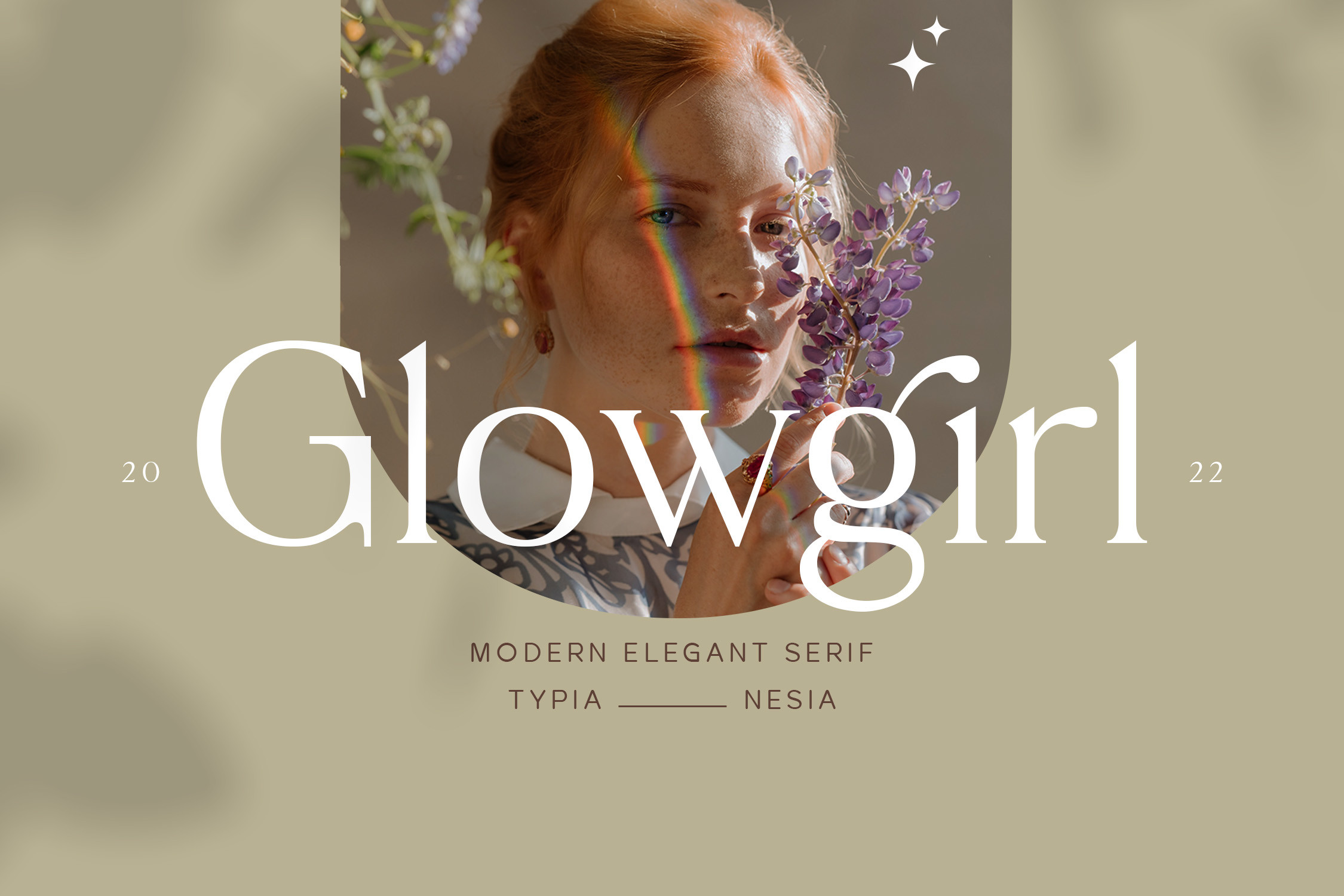
Glowgirl is an elegant and authentic serif font. It looks gorgeous on various designs that require a cool touch. Use this font for your designs and explore its endless possibilities.